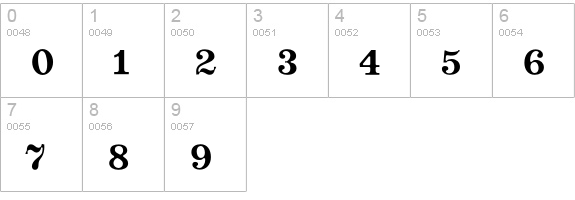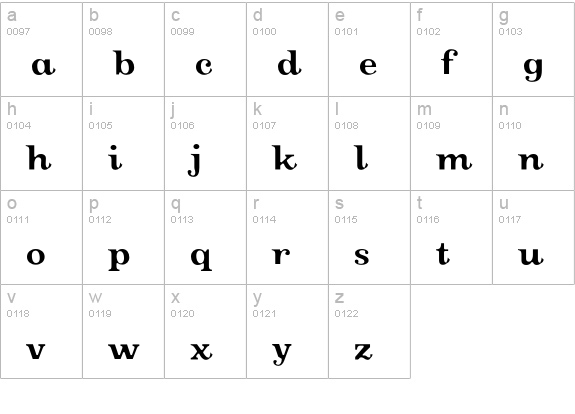
Oxtail Bold Font Details
Oxtail Bold is a strong, high-contrast variant in the Oxtail typeface family \xE2\x80\x94 well suited to headlines, attention-grabbing titles, and strong calls-to-action.
Oxtail Bold font is a striking and robust typeface that exudes power and elegance. With its bold and commanding presence, this font is perfect for making a statement in any design project. The strong, thick lines of Oxtail Bold give it a sense of authority and confidence, making it ideal for headlines, titles, and other attention-grabbing text. The best part? Oxtail Bold is completely free to download at FontsMarket.com! Embrace the boldness and sophistication of Oxtail Bold in your next project and make a lasting impression with this dynamic font.